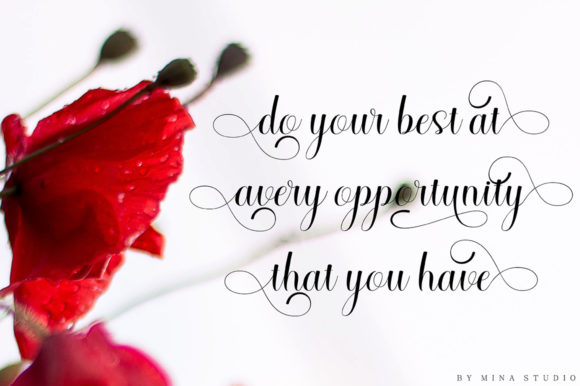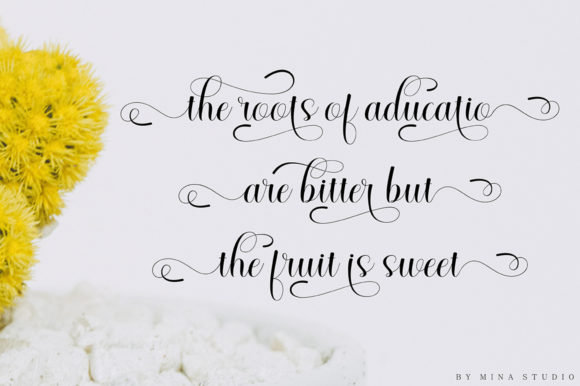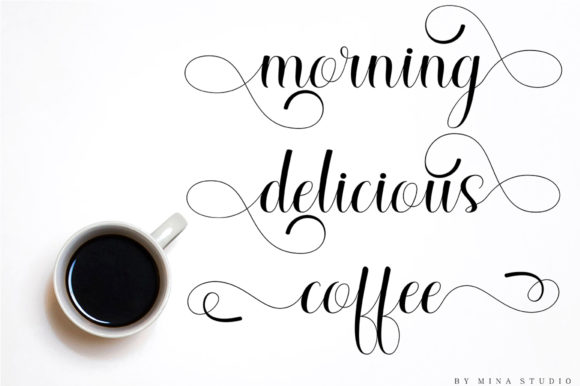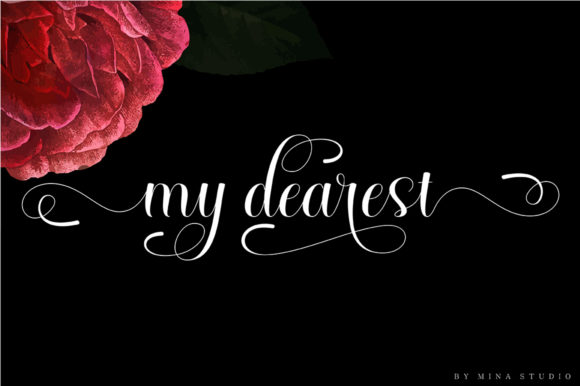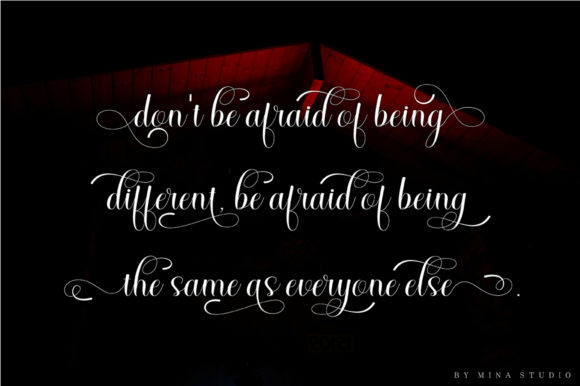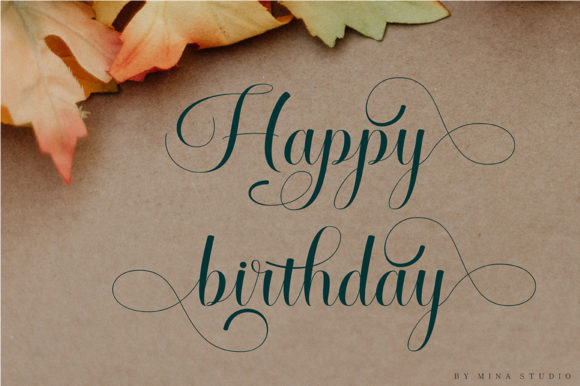
The Elusive Perfect Font: My Encounter with Gather
I’ll never forget the frustration of working on a project, hours pouring into design, only to hit a roadblock: finding the right font. My client wanted something elegant, yet modern; something that would make their brand stand out but still convey a sense of tradition. I scoured font libraries, tried out numerous options, but nothing seemed quite right. That was until I stumbled upon Gather, an elegant and flowing handwritten font that has since become a staple in my design toolkit.
A First Look at Gather
Gather is described as an elegant and flowing handwritten font, and those words couldn’t be more fitting. It’s PUA encoded, which means accessing all the glyphs and swashes is a breeze. The font features a varying baseline, smooth lines, gorgeous glyphs, and stunning alternates. It maintains its classy calligraphic influences while feeling contemporary and fresh. Whether you’re working on a branding project, a wedding invitation, or a personal craft, Gather has the potential to elevate your work to new heights.
My Honest Review of Gather
- ✨ Elegant and flowing script that’s perfect for projects needing a touch of sophistication
- 🌈 A range of alternates and stylistic sets to customize your text
- ⚠️ Some of the swashes and glyphs require a bit of experimentation to get right
- 🤔 Not all alternates display correctly in every program (particularly older software)
The Story Behind Gather
While the specific story behind Gather’s creation might be shrouded in mystery, it’s clear that the designer poured their heart and soul into crafting a font that’s both timeless and modern. The attention to detail, from the varying baseline to the intricate swashes, speaks to a deep understanding of typography and design.
Q: What makes Gather unique?
A: Gather’s unique blend of elegance, modernity, and extensive OpenType features sets it apart. Its varying baseline and range of swashes and alternates offer endless possibilities for customization.
Q: Is Gather difficult to use for beginners?
A: While Gather offers advanced features, it’s relatively straightforward to use, even for beginners. Familiarizing yourself with basic typography and OpenType features will help you get the most out of the font.